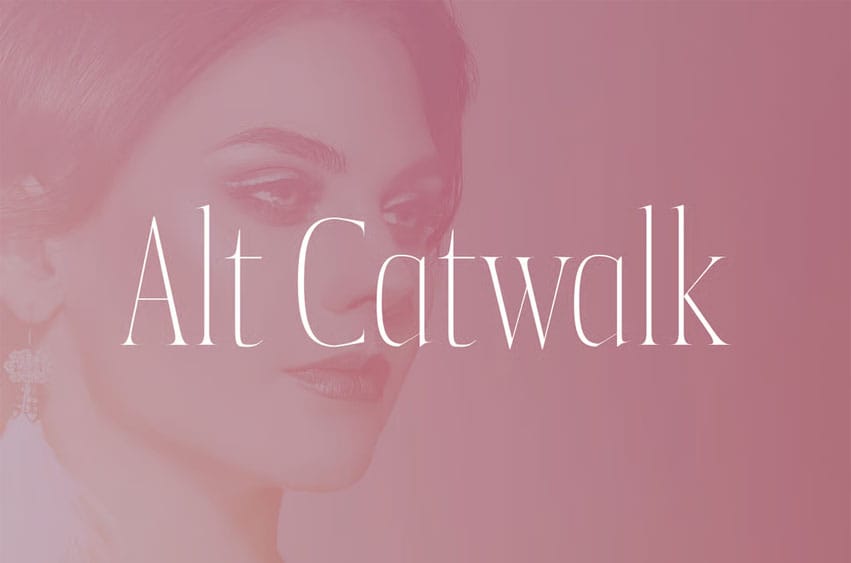
Alt Catwalk Font Elegant & Fashionable Display Font Family. Every letter has a unique and beautiful touch, which will make your design come alive!
Crafted with high attention to detail, it gives you the best design experience.